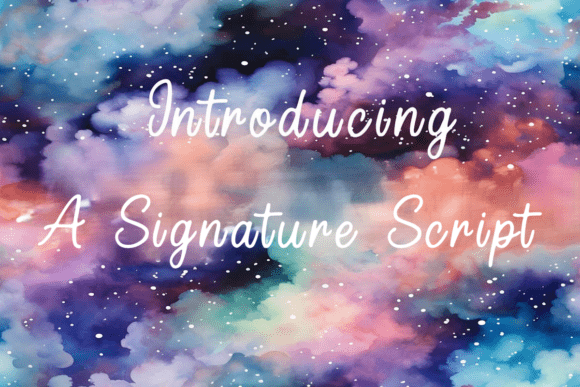
Introducing A Signature Script Font: Elevate Your Designs with Elegance and Versatility
In the world of typography, a signature script font can make all the difference in elevating your designs from ordinary to extraordinary. Meet “A Signature Script” – a versatile and charming font designed to enhance a wide range of creative projects. Whether you’re working on clothing decals, brand advertisements, editorial layouts, or print media, this font adds a sleek, professional touch to the mundane.
What Makes A Signature Script Font So Special?
A Signature Script font is more than just a typographical style – it’s a statement piece that can transform your designs and capture the essence of your brand or message. Here are some key features that make “A Signature Script” stand out:
- Versatility: This font is designed to be adaptable and can be used in various contexts, from elegant and sophisticated to playful and fun.
- Professional Touch: The sleek and refined lines of “A Signature Script” add a level of professionalism to your designs, making them perfect for branding, advertising, and editorial projects.
Whether you’re a designer, crafter, or social media enthusiast, “A Signature Script” offers endless possibilities for creative expression. Here are some ideas to get you started:
- Clothing Decals: Add a touch of elegance to your t-shirt designs, hoodies, or tote bags with this beautiful script font.
- Brand Advertisement: Use “A Signature Script” to create stunning brand ads that exude sophistication and style.
- Editorial Layouts: Elevate your magazine or newspaper layouts with this refined font, perfect for headlines, subheadings, and body copy.
- Print Media: From business cards to brochures, this font is ideal for any print media project that requires a touch of class.
- Greeting Cards: Create beautiful and personalized greeting cards with “A Signature Script” and Cricut crafts.
- Poster Designs: Make a statement with your poster designs using this versatile and eye-catching font.
Transform Your Social Media Aesthetics
In today’s digital age, having a strong social media presence is crucial for businesses, influencers, and creatives. “A Signature Script” can help you transform your social media aesthetics and stand out from the crowd. Use this font to:
- Create Stunning Graphics: Add a touch of elegance to your social media graphics, such as quote posts, promotions, or announcements.
- Develop a Consistent Brand Voice: Use “A Signature Script” across all your social media platforms to establish a consistent brand voice and visual identity.
- Enhance Your Content: Elevate your social media content with beautiful typography that captures the essence of your message.